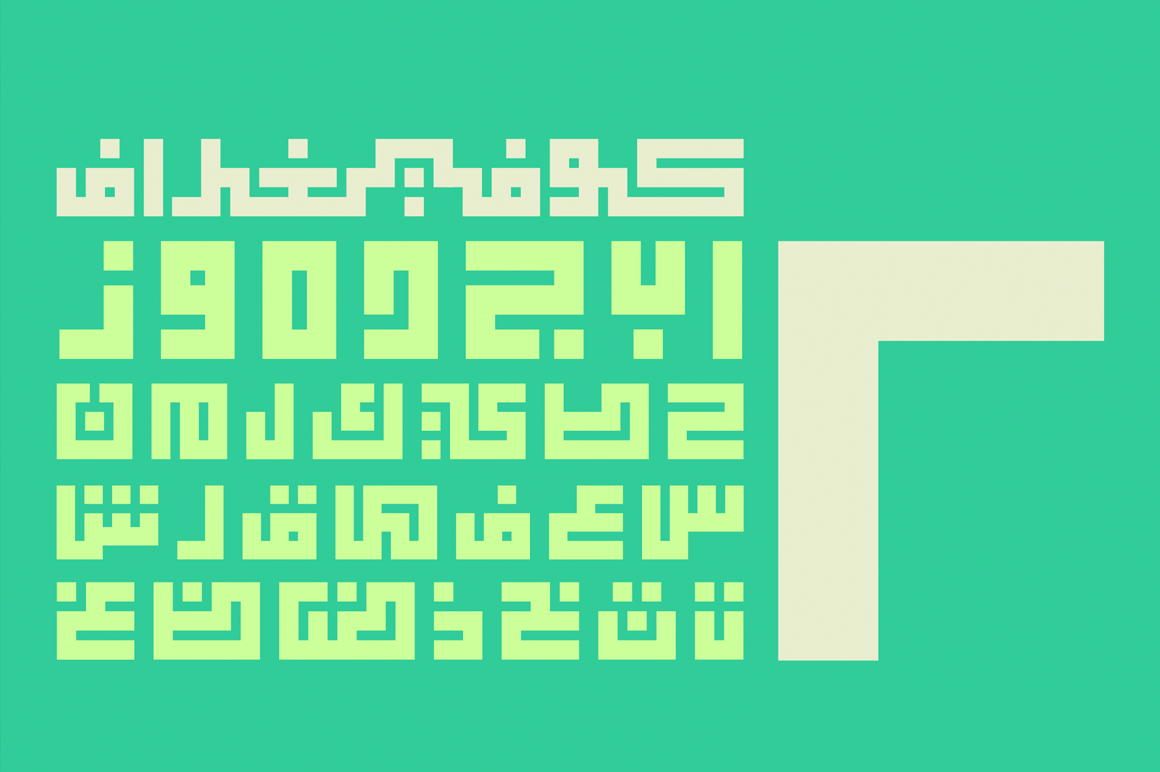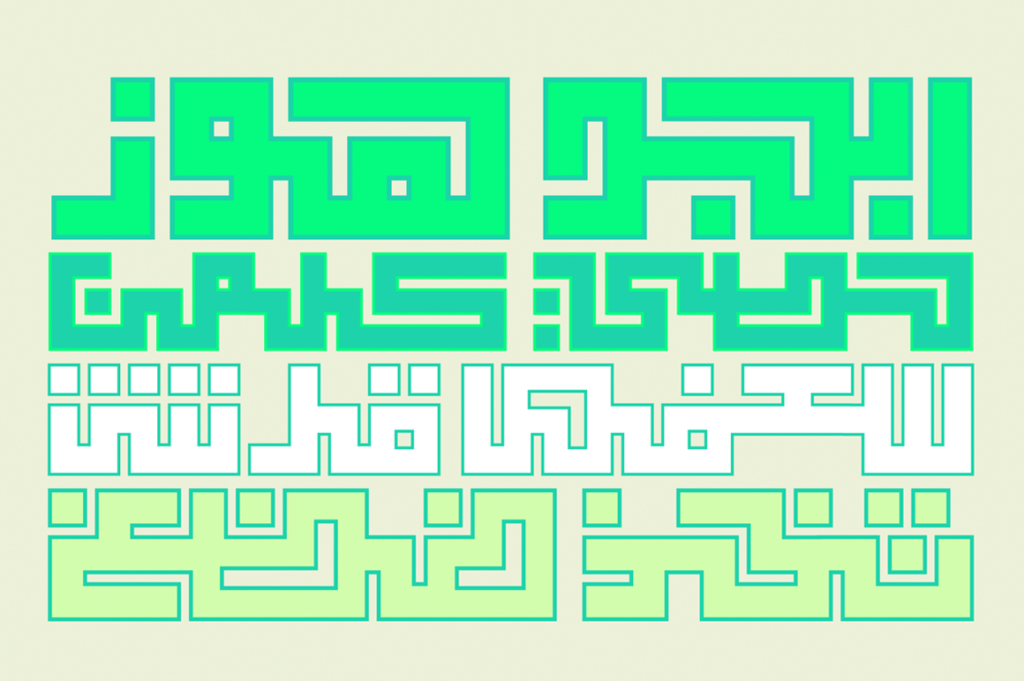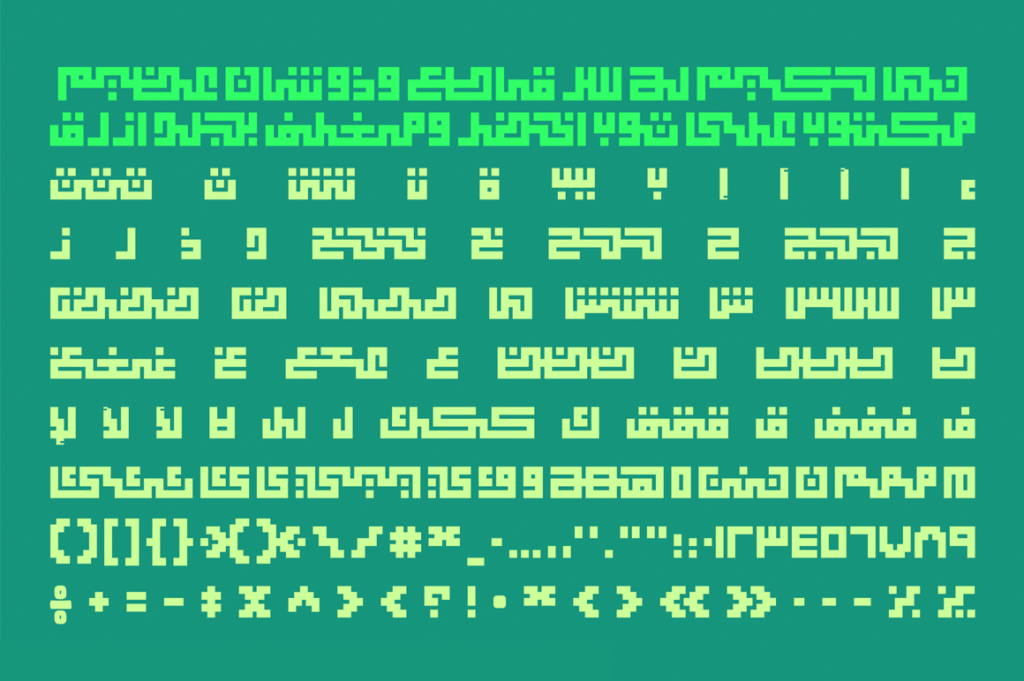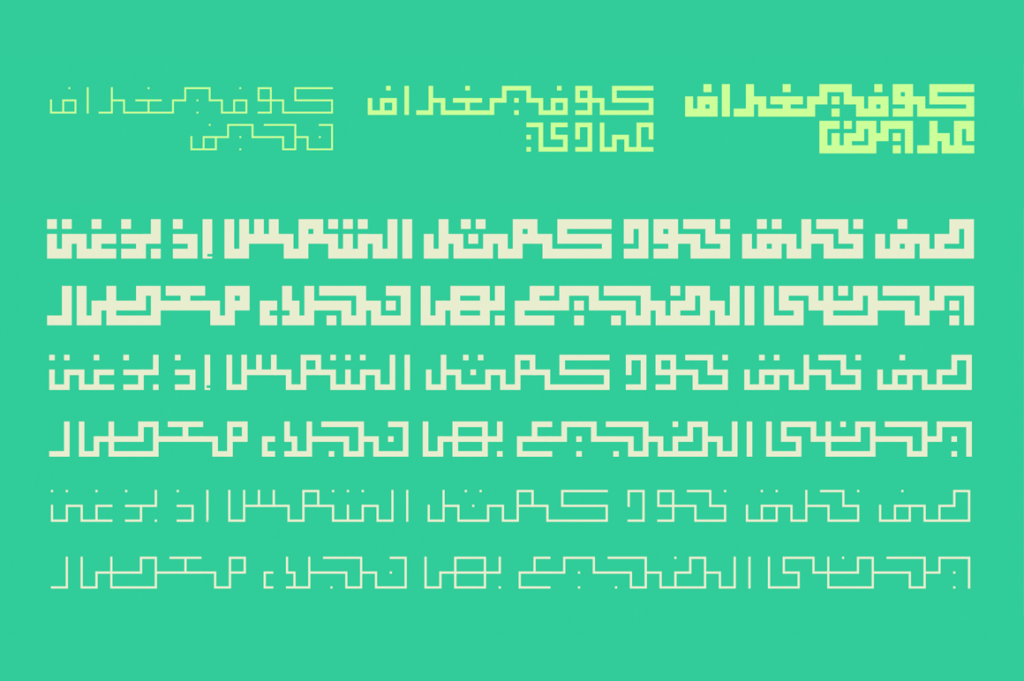
Kufigraph Font Family
Kofigraph is a thoughtfully crafted typeface that brings the ancient geometric elegance of Kufic script into contemporary design contexts. With its clean lines, balanced proportions, and distinctive character, this font offers a perfect blend of historical authenticity and modern versatility.
Kufic Calligraphy Foundation:
• Rooted in the geometric traditions of Kufic script
• One of the oldest forms of Arabic calligraphy
• Clean, structured letterforms with architectural precision
• Historical authenticity with contemporary execution
Design Characteristics:
• Geometric, structured Arabic letterforms
• Clean lines with precise construction
• Balanced proportions for excellent readability
• Contemporary Kufic interpretation
• Distinctive, memorable appearance
Arabic Script:
• Complete Arabic character set
• Full support for diacritics and marks
• Proper character connections and positioning
• Consistent geometric styling across all letters
• Optimized for both text and display sizes
• Logo Design: Create memorable, structured brand identities
• Branding Projects: Cohesive identities with geometric elegance
• Posters: Clean, contemporary promotional materials
• Editorial Design: Magazines and publications
• Packaging: Modern product presentation
• Web Design: Clean digital typography
• Signage: Professional displays
• Architectural Design: Projects needing structured letterforms
• Cultural Projects: Designs with historical resonance
• Geometric Beauty: Clean, structured Kufic-inspired design
• Historical Roots: Authentic calligraphic foundation
• Modern Versatility: Perfect for contemporary applications
• Professional Quality: High-caliber font for commercial use
• Distinctive Character: Stands out with unique visual language
Key Features of Kofigraph Font:
• Geometric Kufic-inspired Arabic design
• Clean lines with precise construction
• Complete Arabic character set
• Perfect for logos, branding, and contemporary design
• Logo and brand identity designers
• Graphic designers seeking geometric typography
• Editorial and publication designers
• Packaging and product designers
• Architects and spatial designers
• Anyone needing clean, structured Arabic fonts
Kufigraph is an Arabic font that is based on a very simplified geometric script. The base line in Kufigraph falls in the absolute center between equal ascenders and descenders.
The anatomy of some letters was completely re-designed in order to meet the new structure and to develop a unique typing experience. Kufigraph comes in three weights; light, regular and bold.